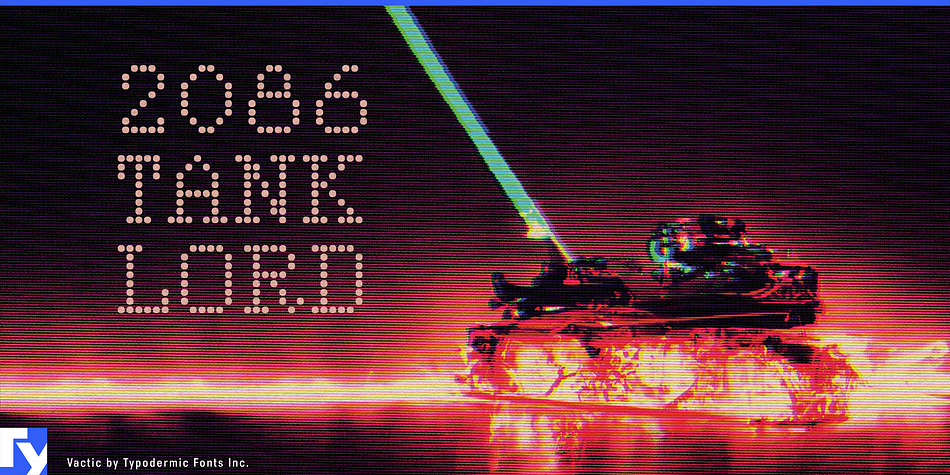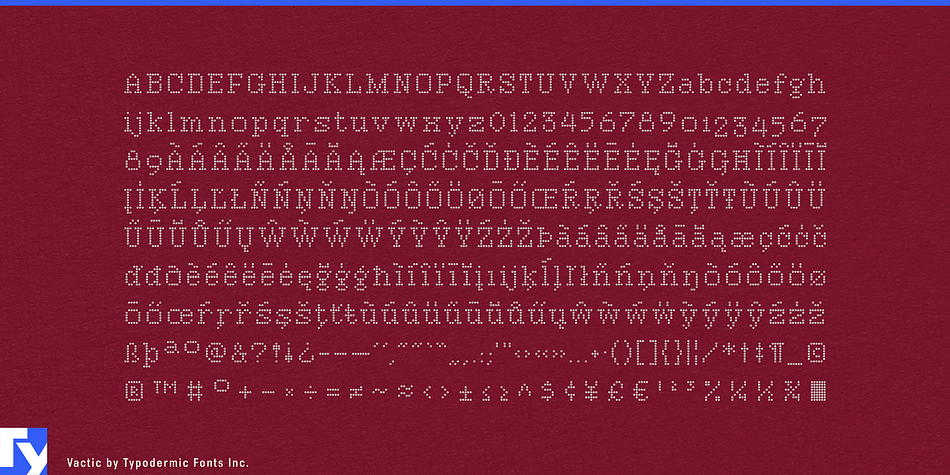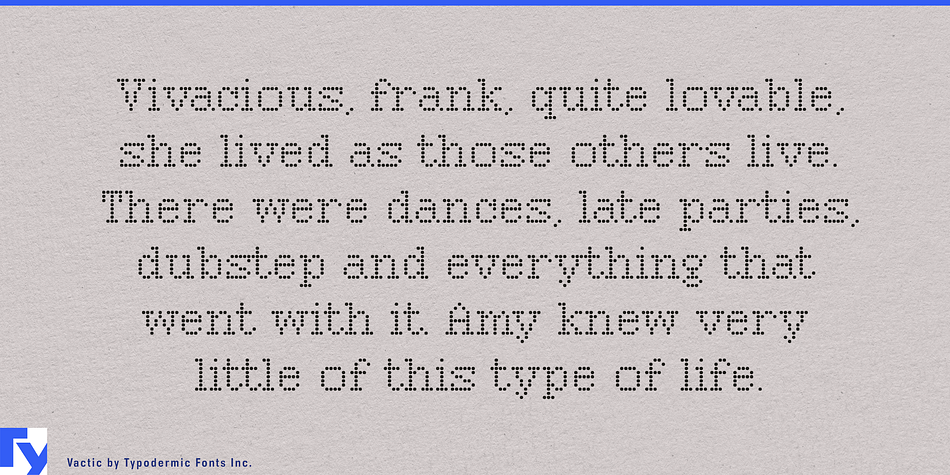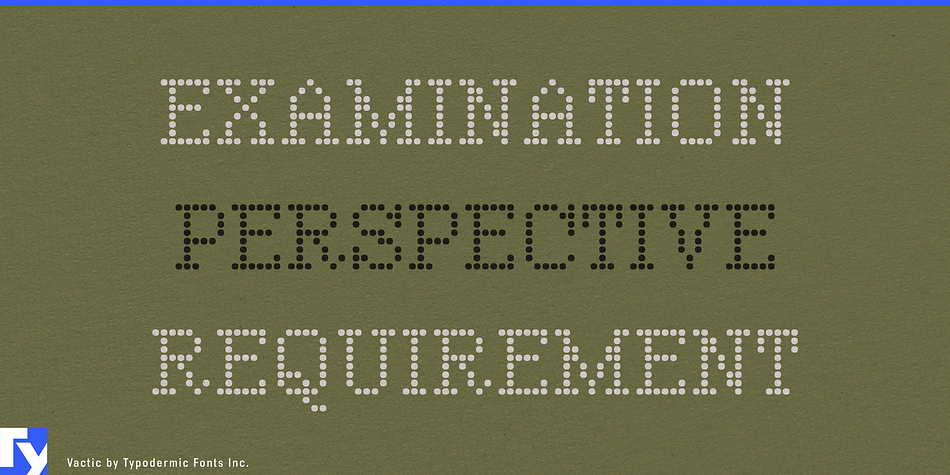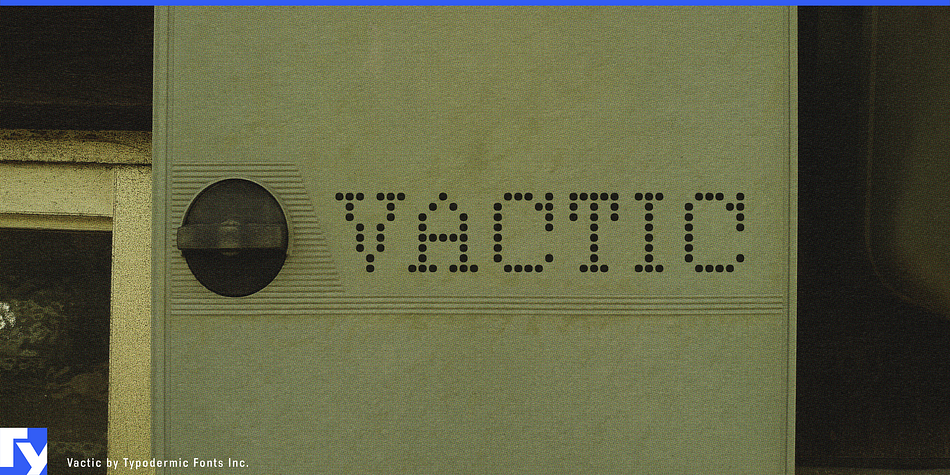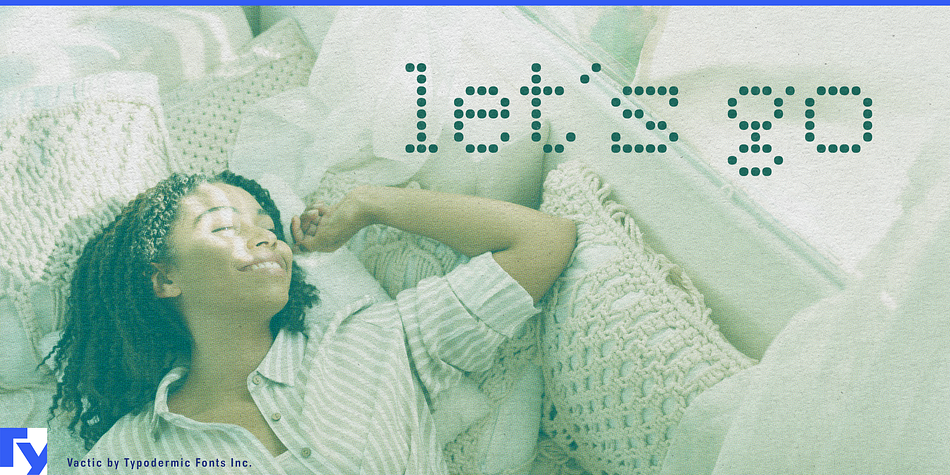
Vactic is a display font published by Typodermic Fonts Inc.
Vactic recalls the era of room-sized computers and ticker tape parades. Use it black on beige for a punch-card effect. Use it red on black to duplicate pixel board lighting. Use it black on white to report today’s hog belly prices.